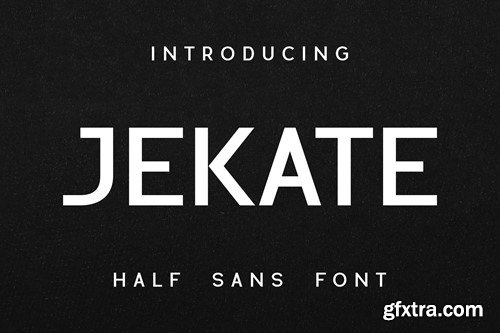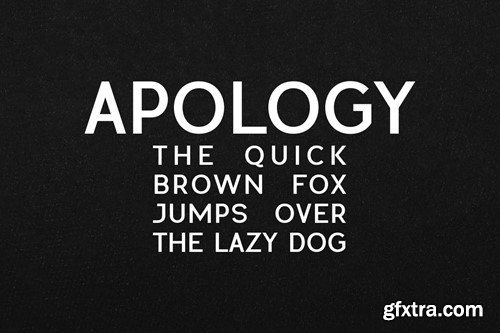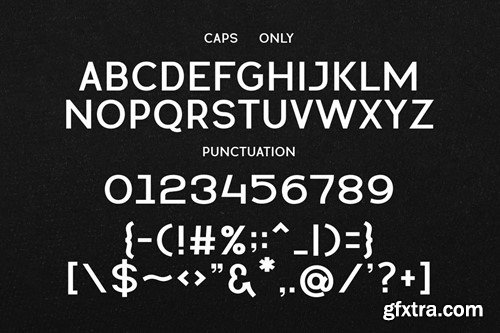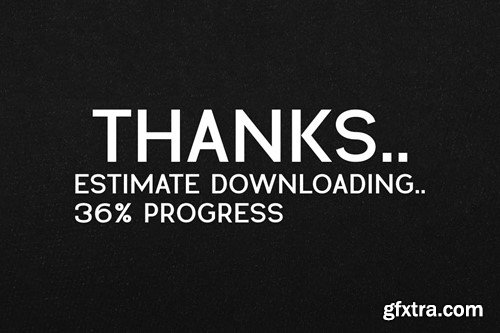
El Jekate Font
is a font that is suitable for Web needs, this font is a little fatter and shorter, so that it becomes a distinctive feature on your website. available in .OTF and .TTF formats. Thank You